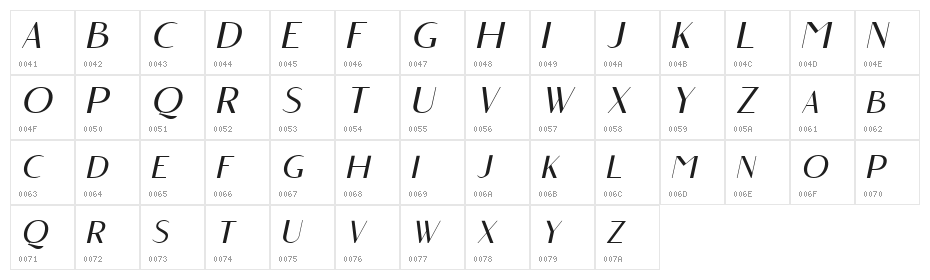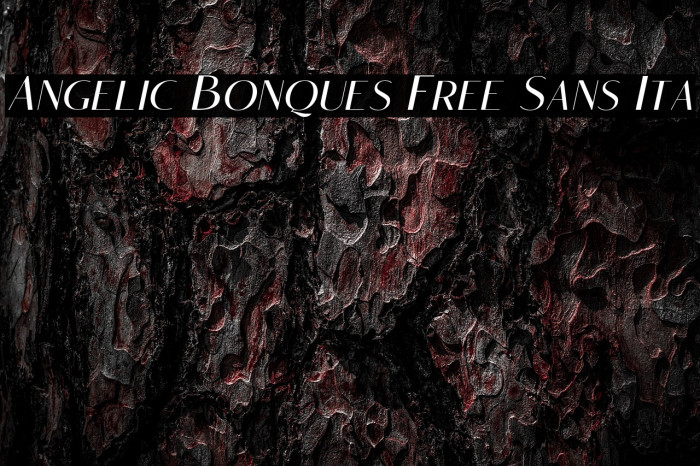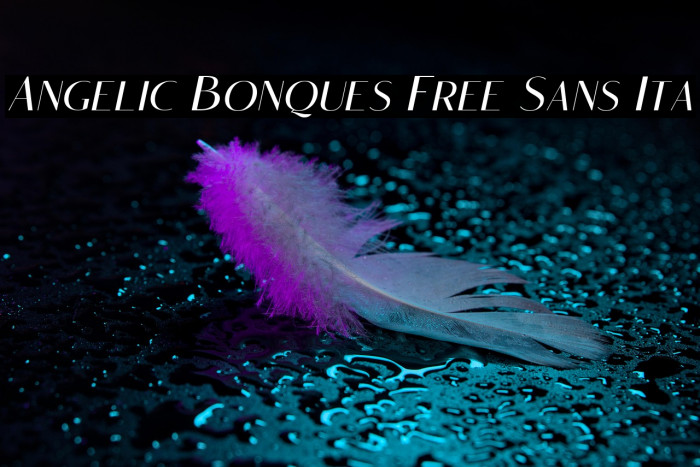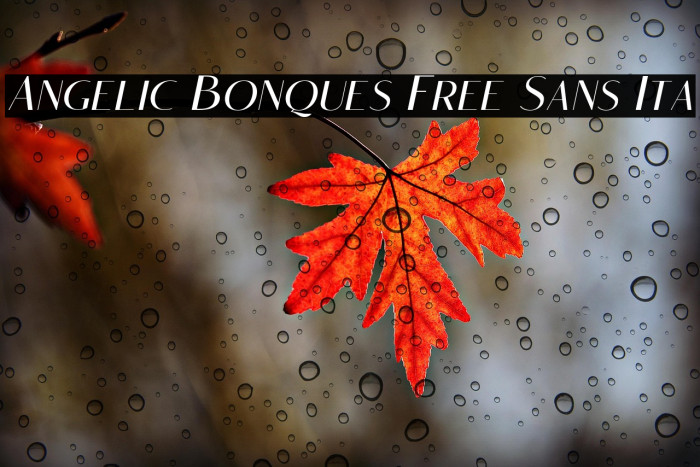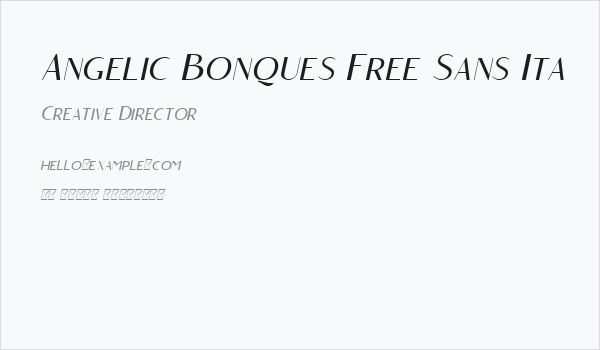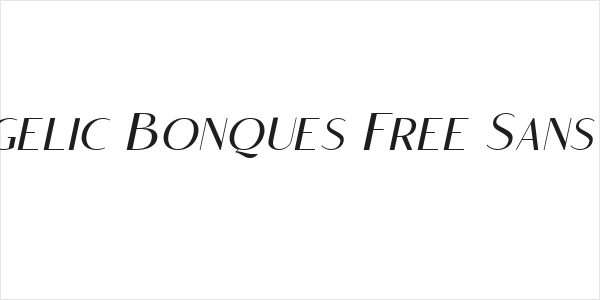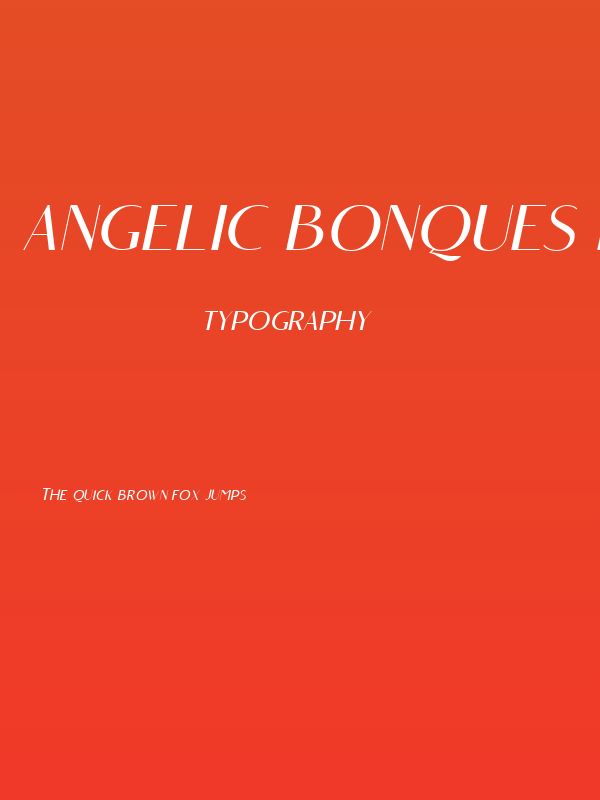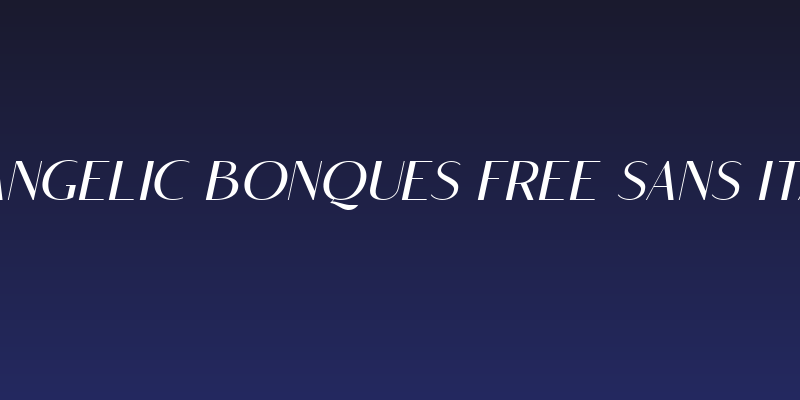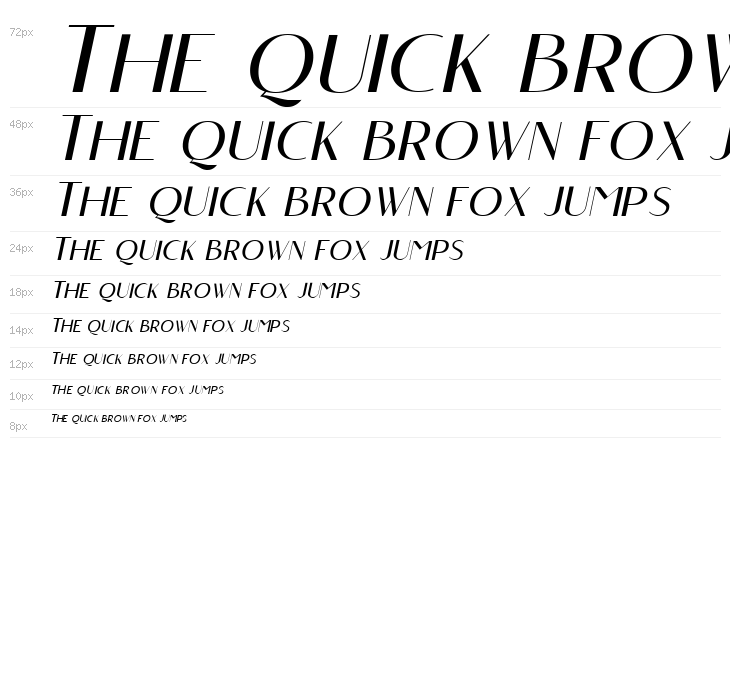
Angelic Bonques Free Sans Ita Font
Angelic Bonques Free Sans Ita Description
This font features a sleek and modern design with a distinct italic slant, giving it a dynamic and elegant appearance. The characters are crafted with a high contrast between thick and thin strokes, adding a sophisticated flair. The uppercase letters are particularly striking, with elongated forms and sharp angles that convey a sense of motion and energy. The lowercase letters maintain a consistent style, complementing the uppercase with their refined curves and clean lines. Overall, this font exudes a contemporary and stylish vibe, making it suitable for a variety of design projects.